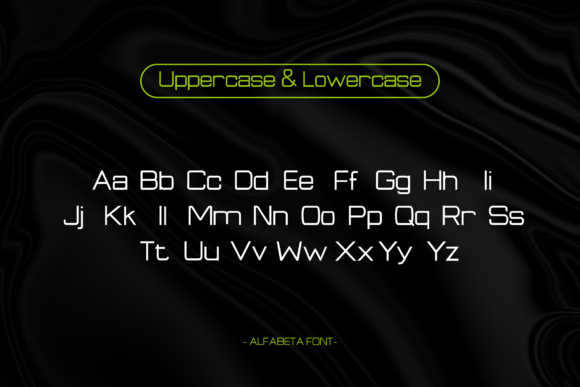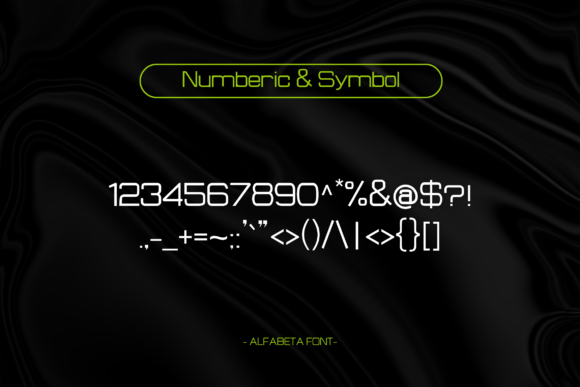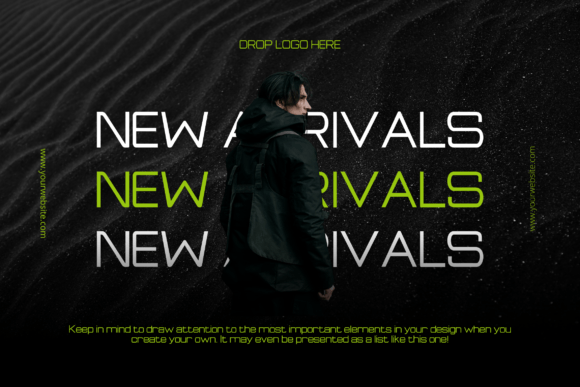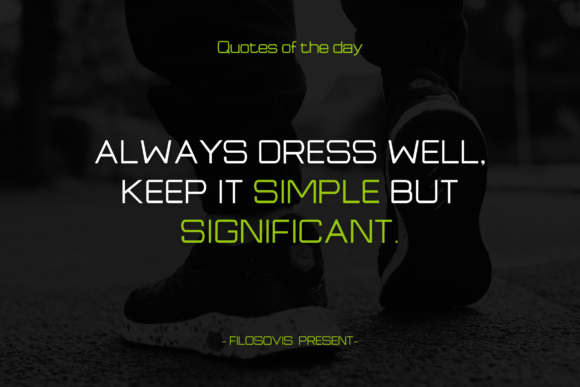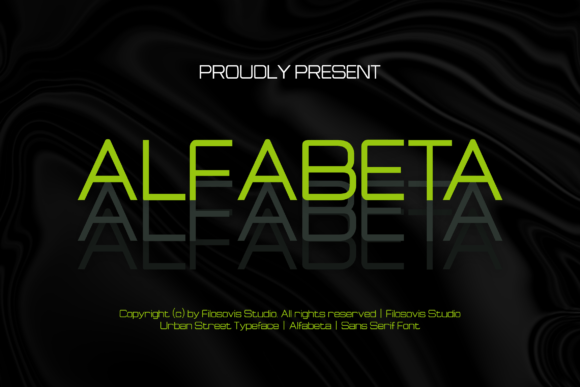
Introducing Alfabeta Font: The Epitome of Modern Sophistication
In the realm of typography, few fonts manage to capture the essence of contemporary style as effortlessly as Alfabeta. This stylish, modern sans-serif font has been turning heads with its clean lines, balanced proportions, and an unmistakable air of elegance. Whether you’re a designer looking to elevate your branding, an editorial layout enthusiast aiming for a sleek look, or a digital interface professional seeking a versatile typeface, Alfabeta is the perfect choice. In this article, we’ll dive deep into the world of Alfabeta, exploring its features, applications, and why it stands out in the crowded font landscape.
The Design Philosophy Behind Alfabeta
Alfabeta’s design is rooted in the principles of modern sans-serif typography, with a focus on simplicity, readability, and aesthetic appeal. Each letterform is meticulously crafted to contribute to the font’s overall sense of harmony and balance. The clean lines and geometric shapes ensure that Alfabeta remains approachable and legible across various mediums, from digital screens to print.
Key Features of Alfabeta Font
• Clean Lines and Geometric Shapes: Alfabeta’s design is characterized by its use of clean lines and geometric shapes, giving it a modern and sleek appearance.
• Balanced Proportions: The font features well-balanced proportions, ensuring that it remains legible and visually appealing in a variety of contexts.
• Versatility: Alfabeta is incredibly versatile, making it suitable for a wide range of applications, from branding and editorial layouts to digital interfaces.
• Elegance: The font exudes a sense of elegance and sophistication, making it perfect for designers looking to add a touch of class to their projects.
Applications of Alfabeta Font
Alfabeta’s versatility is one of its most compelling attributes. Here are some of the key areas where Alfabeta truly shines:
• Branding: For businesses looking to establish a modern and sophisticated brand identity, Alfabeta offers a stylish solution. Its clean and elegant appearance makes it perfect for logos, signage, and marketing materials.
• Editorial Layouts: In editorial design, the right font can make all the difference. Alfabeta’s readability and aesthetic appeal make it an excellent choice for magazines, newspapers, and online publications.
• Digital Interfaces: As digital platforms continue to evolve, the demand for fonts that look great on screen has never been higher. Alfabeta meets this demand with its clear and legible design, making it suitable for websites, apps, and digital advertising.
Why Choose Alfabeta?
In a market saturated with fonts, Alfabeta stands out for several reasons:
• Contemporary Style: Alfabeta embodies the spirit of modern design, making it an excellent choice for projects that require a current and stylish look.
• Legibility: Despite its stylish appearance, Alfabeta does not compromise on legibility, ensuring that your message is communicated clearly and effectively.
• Versatility: Whether you’re working on a branding project, an editorial layout, or a digital interface, Alfabeta adapts seamlessly, offering a consistent and professional look.
Alfabeta font represents the perfect blend of style, sophistication, and functionality. Its clean lines, balanced proportions, and versatile nature make it an invaluable asset for designers and crafters looking to elevate their projects. Whether you’re aiming to create a sleek brand identity, a visually appealing editorial layout, or a user-friendly digital interface, Alfabeta offers the elegance and legibility you need to make a lasting impression. With Alfabeta, every letter speaks volumes of style, making it an excellent addition to your typographic arsenal.